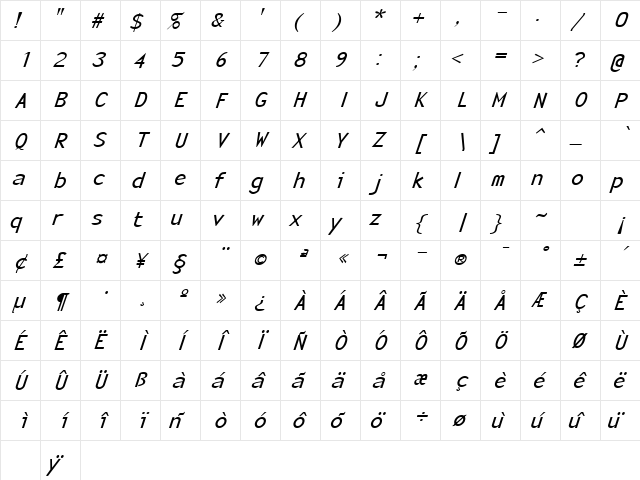
Enola Italic Regular
Design Context for Enola Italic Typeface
Enola Italic takes a measured approach to typography — its balanced proportions and neutral character make it a reliable workhorse for both digital and print work. The slanted form adds forward momentum and visual energy.